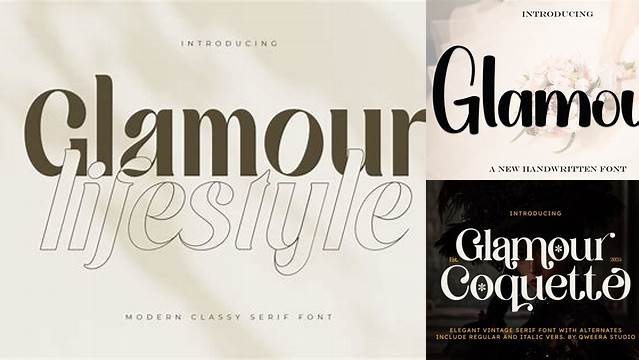
Glamour Luxury Font: Free Download For Your Designs
Hey design enthusiasts! Are you on the hunt for that perfect font to elevate your projects? Something that screams elegance, sophistication, and luxury? Well, you've come to the right place! In this article, we're diving deep into the world of glamour luxury fonts and how you can download them for free. We’ll explore everything from what makes a font “glamorous” to where you can find these beauties and how to best use them in your designs. So, buckle up and let's get started!
1. What Defines a Glamour Luxury Font?
So, what exactly makes a font feel luxurious and glamorous? It's more than just aesthetics, guys. A glamour luxury font often boasts elegant curves, intricate details, and a certain timeless quality. Think of those fonts you see on high-end fashion magazines or in the branding of luxury hotels – that’s the vibe we’re going for. These fonts usually have a sophisticated touch, with delicate serifs or a graceful, flowing script. The weight and spacing of the letters are also crucial; they need to convey both presence and refinement. A true glamour font isn’t just visually appealing; it evokes a feeling of exclusivity and class. Using a luxury font can instantly transform a project, adding a layer of sophistication that other fonts simply can't match. This is why choosing the right glamour font is crucial for branding, advertising, and any design project that aims to impress.
2. The Appeal of Luxury Fonts in Design
Why are luxury fonts so appealing in the world of design? Well, they have this unique ability to communicate quality and prestige. Imagine a wedding invitation, a business card for a high-end brand, or the logo of a boutique hotel – using a glamour luxury font instantly elevates the design, doesn’t it? These fonts are incredibly versatile, lending themselves well to both print and digital media. The use of a glamour font creates an immediate visual impact, capturing the viewer's attention and conveying a sense of sophistication. Luxury fonts also tend to have a timeless quality, meaning they don’t go out of style quickly. This makes them a fantastic investment for branding purposes, ensuring your message stays chic and relevant for years to come. The appeal of these fonts lies in their power to transform a simple design into something extraordinary, adding that touch of elegance and class that truly makes it stand out.
6. Popular Glamour Font Styles: Serif Fonts
Let's talk style, baby! When it comes to glamour luxury fonts, serif fonts are a classic choice. Serif fonts are those with the little “feet” or strokes at the end of the letters, and they exude a sense of tradition, elegance, and authority. Think of fonts like Times New Roman, Garamond, and Didot – these are all serif fonts that have a timeless appeal. In the context of glamour luxury fonts, serifs often have a refined, delicate quality, making them perfect for projects that need a touch of sophistication. A well-chosen serif font can elevate a brand’s image, lending credibility and a sense of history. Whether it’s for a magazine headline, a book cover, or a high-end logo, serif fonts are a reliable way to convey luxury and class. The subtle details in the serifs can add visual interest and make your typography truly stand out. So, if you’re aiming for a glamorous look, explore the world of serif fonts; you’ll find plenty of stunning options to choose from!
7. Popular Glamour Font Styles: Script Fonts
Now, let's swing to the other end of the spectrum and explore script fonts. If serif fonts are the epitome of classic luxury, script fonts bring a touch of romance and artistry to the table. These fonts mimic the fluidity of handwriting, often with elegant swirls and loops that add a personal, bespoke feel. A glamour luxury font in script can be incredibly eye-catching, perfect for invitations, branding, and anything that needs a touch of personality. Think of the flowing script fonts you see on wedding invitations or perfume packaging – that’s the kind of impact we’re talking about. However, script fonts can be trickier to use than serifs; readability is key. You want to make sure your message is still clear and easy to read, so avoid using script fonts for large blocks of text. When used sparingly and strategically, a beautiful script font can add a touch of magic to your design. So, if you’re looking to infuse some personality and glamour into your project, script fonts are definitely worth exploring!
8. Popular Glamour Font Styles: Modern Fonts
For a glamour luxury vibe with a contemporary twist, modern fonts are the way to go! These fonts often feature clean lines, geometric shapes, and a sleek, minimalist aesthetic. They exude a sense of sophistication and cutting-edge style, perfect for brands that want to project a forward-thinking image. A luxury font in a modern style can be incredibly versatile, working well in both print and digital media. Think of the sleek logos of tech companies or the chic typography in fashion editorials – modern fonts are all about making a statement with understated elegance. These fonts often have a strong visual presence without being overly ornate, making them a great choice for projects that need to feel both glamorous and contemporary. When choosing a modern font, pay attention to details like letter spacing and weight; these can significantly impact the overall feel of your design. So, if you're aiming for a look that's both stylish and current, modern fonts offer a fantastic range of options!
9. How to Choose the Right Glamour Font
Okay, guys, choosing the right glamour font can feel like a Herculean task, but don't sweat it! The key is to think about the overall message you want to convey and the context in which the font will be used. Are you designing a logo for a high-end spa? A wedding invitation? Or maybe a website for a luxury brand? Each of these projects calls for a slightly different approach. Consider the personality of the brand or event. Is it classic and elegant? Modern and edgy? Romantic and whimsical? The font should align with this vibe. Also, think about readability. A stunning luxury font is useless if people can't read it! For body text, stick to simpler, more legible fonts, and save the fancy stuff for headlines and logos. Finally, don't be afraid to experiment and try out different combinations. Pairing a glamour font with a simpler sans-serif can create a striking contrast. Choosing the right font is a crucial part of the design process, so take your time and trust your instincts!
10. Combining Glamour Fonts with Other Font Styles
One of the secrets to stunning typography is knowing how to mix and match fonts. You wouldn't wear a ball gown to the gym, right? Same goes for fonts – you need to pair them thoughtfully! When using a glamour luxury font, it's often best to combine it with a simpler, more understated font for body text. Think of it like this: the luxury font is the star of the show, and the other font is the supporting cast. A classic combination is pairing a script or serif glamour font with a clean sans-serif. This creates a nice visual contrast and ensures readability. For example, you could use an elegant script font for a headline and a simple sans-serif like Open Sans or Lato for the body text. The key is balance. You want the fonts to complement each other, not compete. Avoid using multiple decorative fonts in the same design; it can look cluttered and overwhelming. So, when you're working with a glamour font, think about how it interacts with other fonts and create a harmonious visual hierarchy. Mastering font pairing can take your designs from good to glamorous!
11. Using Glamour Fonts for Logos
Your logo is the face of your brand, guys, so it needs to make a statement! A glamour luxury font can be an amazing choice for logos, especially for brands that want to project sophistication, elegance, and high quality. Think about luxury fashion brands, high-end hotels, or boutique beauty products – a glamour font can instantly convey that sense of luxury. When choosing a font for your logo, consider your target audience and the overall brand identity. A script font can feel romantic and personal, while a serif font can exude tradition and authority. A modern font can give your logo a sleek, contemporary edge. The key is to choose a font that not only looks beautiful but also reflects the essence of your brand. Keep in mind that your logo needs to be versatile and work well in different sizes and contexts. So, make sure the glamour font you choose is legible and recognizable, even when it’s small. A well-chosen font can elevate your logo and make a lasting impression!
12. Using Glamour Fonts for Headlines
Headlines are your chance to grab attention, and a glamour luxury font can be your secret weapon! Whether it's for a website, a magazine, or a poster, a striking headline can make all the difference. Glamour fonts, with their elegant curves and sophisticated details, are perfect for creating headlines that command attention. Think of fashion magazines, high-end advertisements, or luxury event invitations – these often feature headlines in stunning glamour fonts. When using a luxury font for headlines, consider the overall tone and message you want to convey. A script font can add a touch of romance and elegance, while a serif font can project authority and tradition. A modern font can give your headlines a sleek, contemporary feel. The key is to choose a font that complements the content and draws the reader in. Don't be afraid to experiment with different sizes and weights to create visual interest. And remember, legibility is crucial, even for headlines. So, choose a glamour font that's both beautiful and readable. With the right font, your headlines will shine!
13. Using Glamour Fonts for Branding
Branding is all about creating a cohesive and memorable identity, and typography plays a huge role in this. A glamour luxury font can be a powerful tool for branding, especially if you're targeting a high-end market or want to project an image of sophistication and quality. Your brand's fonts are like its voice – they communicate your personality and values to the world. A well-chosen luxury font can instantly elevate your brand, conveying a sense of elegance, prestige, and attention to detail. Think about luxury fashion brands, high-end cosmetics, or boutique hotels – they often use glamour fonts to reinforce their premium image. When choosing a font for your brand, consider your target audience and the overall message you want to send. A script font can add a personal touch, while a serif font can project tradition and authority. A modern font can give your brand a sleek, contemporary edge. Consistency is key when it comes to branding, so use your chosen font across all your materials, from your logo and website to your marketing collateral. With the right glamour font, your brand will make a lasting impression!
14. Best Font Pairings with Glamour Fonts
Font pairing is an art, guys! You want your fonts to work together like a perfectly choreographed dance, not a clumsy free-for-all. When you're rocking a glamour luxury font, you need a supporting font that complements it without stealing the spotlight. Think of it like pairing a bold statement necklace with a simple, elegant dress. The key is balance and contrast. A classic pairing is a glamour serif or script font with a clean, minimalist sans-serif. For example, you might pair a flowing script font with Open Sans or Montserrat for a chic, contemporary look. Another option is to pair a luxury serif font with a simpler sans-serif like Lato or Roboto. These combinations create a visual hierarchy, with the glamour font taking center stage and the sans-serif providing readability and balance. Avoid pairing two highly decorative fonts; it can look cluttered and overwhelming. And always consider the context – what works for a wedding invitation might not work for a business presentation. With a little practice, you'll become a font pairing pro!
15. Free Glamour Fonts for Personal Use
For personal projects, the world of free glamour fonts is your oyster! Whether you're designing invitations, creating social media graphics, or sprucing up your blog, there are tons of beautiful fonts out there that won't cost you a dime. Personal use fonts are typically free to use for non-commercial projects, which means you can use them for anything that doesn't involve making money. Think birthday cards, party invitations, personal websites, or just for fun. Websites like DaFont, Font Squirrel, and Google Fonts offer a wide range of luxury fonts that are perfect for personal use. Remember to always check the licensing terms before you download a font, just to be sure you're using it correctly. And don't be afraid to experiment! Personal projects are a great way to try out different styles and see what you like. So, go ahead and explore the world of free glamour fonts – you'll be amazed at the treasures you can find!
16. Free Glamour Fonts for Commercial Use
If you're using glamour fonts for business projects, you'll need to pay attention to licensing. Not all free fonts are created equal, guys! Some are free for personal use only, while others can be used commercially without any licensing fees. Commercial use means you can use the font for anything that generates revenue, like logos, marketing materials, or products for sale. Finding a luxury font that's free for commercial use can feel like hitting the jackpot, but it's definitely possible. Websites like Font Squirrel and Google Fonts are excellent resources for commercially free fonts. They offer a wide selection of high-quality fonts that you can use without worrying about licensing issues. When you download a font, always check the licensing terms to make sure it covers your intended use. It's better to be safe than sorry! And remember, just because a font is free doesn't mean it's low quality. There are plenty of stunning glamour fonts out there that won't break the bank. So, do your research and find the perfect font for your project!
17. How to Install Fonts on Windows
Okay, you've downloaded the perfect glamour luxury font – now what? Time to install it! If you're a Windows user, the process is pretty straightforward. First, locate the font file you downloaded. It's usually in a ZIP folder, so you'll need to extract it. Once you've extracted the files, you'll see one or more font files, typically with extensions like .ttf or .otf. To install the font, simply right-click on the font file and select "Install." Windows will automatically install the font, and it will be available in your design software. Another way to install fonts on Windows is to copy the font files and paste them into the Fonts folder, which is located in your Windows directory (usually C:\Windows\Fonts). Both methods work equally well. After installing the font, you may need to restart your design software for it to recognize the new font. And that's it! You're ready to start using your new luxury font in your projects. Easy peasy, right?
18. How to Install Fonts on macOS
Mac users, listen up! Installing glamour luxury fonts on macOS is just as easy as on Windows, maybe even easier! Once you've downloaded your font, it's usually in a ZIP file. Double-click the ZIP file to extract the font files, which will typically have extensions like .ttf or .otf. To install the font, simply double-click the font file. This will open Font Book, the built-in font management application on macOS. Font Book will display a preview of the font and a button that says "Install Font." Click the button, and the font will be installed on your system. Another way to install fonts on macOS is to drag the font files into the Font Book application. You can find Font Book in your Applications folder. After installing the font, it will be available in all your design software. You might need to restart your applications for them to recognize the new font. And that's all there is to it! You're now ready to unleash your new luxury font on the world. macOS makes it super simple to manage your fonts, so you can focus on creating beautiful designs!
19. Troubleshooting Font Installation Issues
Sometimes, things don't go as smoothly as planned, and you might run into font installation issues. Don't panic, guys! Most font problems are easily solved. If your glamour luxury font isn't showing up in your design software after installation, the first thing to try is restarting your computer. This can often resolve minor glitches. Another common issue is font corruption. If a font file is damaged, it might not install correctly. Try downloading the font again from a different source. If you're still having trouble, make sure the font file is in the correct format (.ttf or .otf). Older software might not support certain font formats. Also, check your font management software (like Font Book on macOS or NexusFont on Windows) to see if the font is enabled. Sometimes, fonts can get disabled accidentally. If you've tried everything and the font still isn't working, it might be a compatibility issue with your software. In this case, try using a different font or updating your software. Troubleshooting font problems can be a bit frustrating, but with a little patience, you'll get your luxury font up and running in no time!
20. Best Software for Using Glamour Fonts
To really make the most of your glamour luxury fonts, you need the right software! Luckily, there are tons of amazing design programs out there that are perfect for typography lovers. For professional-grade design, Adobe Creative Suite is the gold standard. Programs like Photoshop, Illustrator, and InDesign offer advanced typography features, allowing you to fine-tune every aspect of your font's appearance. If you're on a budget, there are some excellent free alternatives. GIMP is a powerful image editor that's comparable to Photoshop, and Inkscape is a vector graphics editor similar to Illustrator. For layout and design, Scribus is a free open-source program that's a great alternative to InDesign. If you're just starting out, Canva is a user-friendly online design tool with a wide range of templates and fonts. And for quick text editing and manipulation, FontForge is a free font editor that lets you create and edit your own fonts. The best software for using luxury fonts depends on your needs and skill level. But no matter what your budget or experience, there's a program out there that will help you create stunning typography!
21. Designing Invitations with Luxury Fonts
Invitations are your chance to set the tone for a special event, and a glamour luxury font can help you create a truly memorable first impression. Whether it's a wedding, a gala, or a milestone birthday, the right typography can make all the difference. Think of elegant wedding invitations with flowing script fonts or sophisticated event invitations with classic serif fonts – these convey a sense of luxury and sophistication. When designing invitations, consider the style of the event and choose a luxury font that complements it. A script font can add a romantic touch, while a serif font can project formality and elegance. A modern font can give your invitations a contemporary edge. Pay attention to the layout and spacing of your text, and don't overcrowd the design. Use a simpler font for the details (like the date and time) to ensure readability. And don't be afraid to experiment with colors and textures to create a truly unique invitation. With a glamour font and a little creativity, you can design invitations that wow your guests!
22. Creating Social Media Graphics with Glamour Fonts
Social media is a visual world, and eye-catching graphics are essential for grabbing attention. A glamour luxury font can be a game-changer for your social media posts, helping you create graphics that stand out from the crowd. Whether you're promoting your business, sharing a personal message, or just trying to build your brand, the right typography can make a huge impact. Think of stylish Instagram quotes with elegant script fonts or professional-looking Facebook ads with classic serif fonts – these convey a sense of quality and sophistication. When creating social media graphics, consider your brand's identity and choose a luxury font that aligns with it. A modern font can give your graphics a sleek, contemporary look, while a bold sans-serif can project confidence and authority. Pay attention to the size and spacing of your text, and make sure it's legible on different devices. Use contrasting colors to make your text pop, and don't be afraid to experiment with different layouts. With a glamour font and a creative approach, you can design social media graphics that captivate your audience!
23. Designing Websites with Glamour Fonts
Your website is your online storefront, and the typography you use can make or break the user experience. A glamour luxury font can add a touch of elegance and sophistication to your website, but it's important to use it strategically. Think of high-end fashion websites with chic serif fonts or boutique hotel websites with stylish script fonts – these convey a sense of luxury and quality. When designing your website, consider your brand's identity and choose a luxury font that aligns with it. For headlines and branding elements, a glamour font can make a big impact. But for body text, it's crucial to use a legible font that's easy on the eyes. A simple sans-serif font is often the best choice for long paragraphs. Pay attention to the font size, line height, and letter spacing to ensure readability. And always test your website on different devices and browsers to make sure your typography looks good everywhere. With the right glamour font and a thoughtful approach to typography, you can create a website that's both beautiful and user-friendly!
24. Glamour Fonts for Print Materials
Print materials, like business cards, brochures, and posters, are a fantastic way to make a tangible impression. A glamour luxury font can elevate your print designs, conveying a sense of quality and professionalism. Think of elegant business cards with sophisticated serif fonts or eye-catching posters with bold script fonts – these make a statement and leave a lasting impression. When designing for print, consider the overall aesthetic and choose a luxury font that complements it. A classic serif font can project authority and tradition, while a modern font can give your designs a contemporary edge. Pay attention to the font size and weight, as these can appear differently in print than on screen. Use high-resolution fonts to ensure crisp, clear typography, and always proofread your designs carefully before printing. With the right glamour font and attention to detail, you can create print materials that truly shine!
25. The Importance of Legibility with Glamour Fonts
Okay, guys, let's talk legibility. A glamour luxury font might look stunning, but if people can't read it, what's the point? Legibility is crucial in typography, especially when you're dealing with decorative fonts. A fancy script font might be gorgeous for a headline, but it's probably not the best choice for body text. When choosing a luxury font, always consider the context in which it will be used. For long passages of text, stick to simpler, more legible fonts, like sans-serifs or classic serifs. Save the glamour fonts for headlines, logos, and other display elements. Pay attention to the font size and spacing, and make sure there's enough contrast between the text and the background. And always test your designs with real people to see if they can read them easily. A beautiful font is useless if it's not legible, so prioritize readability in your design decisions!
26. Maintaining Brand Consistency with Fonts
Brand consistency is key to building a strong identity, and typography plays a vital role in this. Choosing a glamour luxury font that aligns with your brand's personality is just the first step. You also need to use it consistently across all your materials, from your logo and website to your social media graphics and print collateral. This creates a cohesive visual identity that your audience will recognize and remember. When you've chosen your luxury font, create a brand style guide that outlines how it should be used. This guide should specify the font sizes, weights, and colors, as well as any other rules for typography. Share this guide with everyone who creates materials for your brand, from designers to marketers. Consistency is the name of the game, so stick to your brand fonts and use them thoughtfully. Over time, your glamour font will become an integral part of your brand's identity, helping you stand out from the competition!
27. Trends in Luxury Font Design
The world of font design is constantly evolving, with new trends emerging all the time. In the realm of glamour luxury fonts, we're seeing a few exciting trends right now. One popular trend is the use of elegant script fonts with a modern twist. These fonts combine the fluidity of traditional calligraphy with clean, contemporary lines, creating a sophisticated and stylish look. Another trend is the resurgence of classic serif fonts, often paired with bold, geometric sans-serifs for a striking contrast. We're also seeing a lot of experimentation with letter spacing and weights, creating unique and eye-catching typography. Bold, oversized typography is another trend, making a statement and commanding attention. When choosing a luxury font, it's worth keeping these trends in mind, but don't feel like you have to follow them blindly. The most important thing is to choose a font that aligns with your brand's identity and effectively communicates your message. Trends come and go, but a well-chosen glamour font will always be in style!
28. The Psychology of Font Choice
Did you know that fonts can evoke emotions and associations? The psychology of font choice is a fascinating field, and understanding it can help you choose the right glamour luxury font for your projects. Different font styles convey different messages. Serif fonts, with their traditional serifs, often evoke feelings of authority, elegance, and trustworthiness. Sans-serif fonts, with their clean lines, tend to feel modern, minimalist, and approachable. Script fonts, with their flowing strokes, convey creativity, personality, and romance. And decorative fonts, with their unique styles, can evoke a wide range of emotions, from playfulness to sophistication. When choosing a luxury font, consider the emotions you want to evoke in your audience. Do you want to project a sense of elegance and sophistication? A classic serif or script font might be a good choice. Do you want to convey a modern and edgy vibe? A geometric sans-serif or a bold display font might be more appropriate. The psychology of font choice is a powerful tool, so use it wisely to create designs that resonate with your audience!
29. Resources for Staying Updated on Font Trends
Staying up-to-date on font trends is essential for designers and anyone who loves typography. Luckily, there are tons of fantastic resources out there to help you stay in the know! Websites like Typewolf and Fonts in Use showcase the latest typography trends and provide examples of fonts in action. Design blogs, like Creative Bloq and Design Milk, often feature articles on font trends and typography tips. Font foundries, like MyFonts and FontShop, regularly publish newsletters and blog posts about new font releases and design trends. Social media platforms, like Instagram and Pinterest, are also great sources of inspiration. Follow designers, typographers, and font foundries to see what they're working on. Online design communities, like Dribbble and Behance, are treasure troves of visual inspiration, showcasing the latest trends in typography and graphic design. And don't forget about print publications! Magazines like Communication Arts and Print feature articles on typography and design, providing in-depth analysis and insights. With so many resources available, staying updated on font trends is easier than ever!
30. Creating Your Own Glamour Font
Feeling ambitious? Why not try creating your own glamour luxury font! It might seem daunting, but with the right tools and a little practice, it's totally achievable. Font creation is a rewarding process that allows you to express your creativity and design a font that's perfectly tailored to your needs. There are several font editing software programs available, ranging from free open-source options like FontForge to professional-grade programs like Glyphs and FontLab Studio. These programs provide the tools you need to draw letters, adjust spacing, and create kerning pairs. Start by sketching out your ideas on paper, then use the software to digitize your designs. Pay attention to the details, like the curves, serifs, and overall weight of the letters. Creating a luxury font takes time and patience, but the results can be truly rewarding. Imagine designing a font that perfectly captures your brand's personality or creating a unique typeface for a special project. With a little dedication, you can unleash your inner font designer and create your own glamour masterpiece!